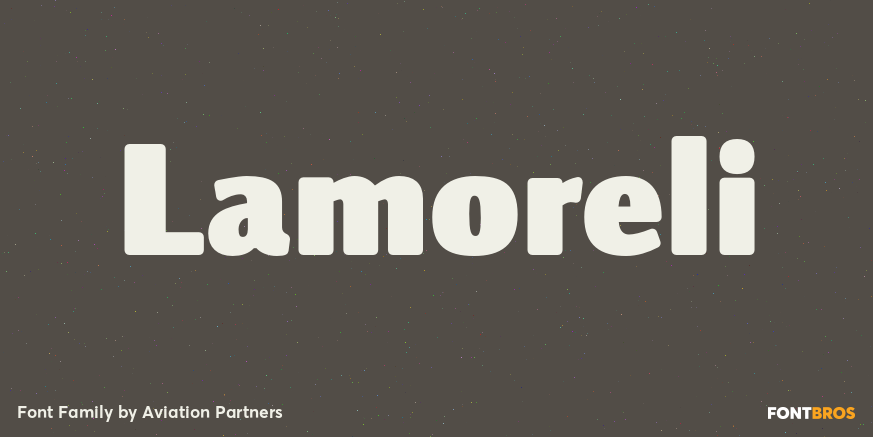
HomeFont BrosSans SerifLamoreli Sans Serif Lamoreli FacebookXPinterestWhatsApp 1 of 1 About Lamoreli is a strong rounded face that provides high impact in a non-aggressive way. It is suitable for display, titling and headlines. It retains integrity even when considerably expanded or condensed.  DOWNLOAD NOW People also explored Tetraclericton Font Qiwqiw Winter in January Font Ronet Font Graduation Font A Monogram Font Birgitte Font Redsea Font Just Thought Font 224 0 TagsLamoreli Font Previous articlePoster Sans ExtremeNext articleYWFT Dekko LEAVE A REPLY Cancel reply Comment: Please enter your comment! Name:* Please enter your name here Email:* You have entered an incorrect email address! Please enter your email address here Website: Save my name, email, and website in this browser for the next time I comment. Personal Use Free Kilsonburg Personal Use Free Read more about this font Hiters Personal Use Free Read more about this font Carnivals Personal Use Free Read more about this font Alinda Personal Use Free Read more about this font BLOG Free vs Paid Fonts: Why Investing in Premium Fonts Is Worth It Free vs Paid Fonts: Why Premium Fonts Are Worth It in 2025 The debate of free vs paid fonts continues in the design world. While... Using Fonts in Digital Marketing: Tips to Strengthen Your Brand Identity To increase your work productivity, choose the most readable fonts. Transform Your Website: Elevate Your Typography with 7 Best Web Font Generators